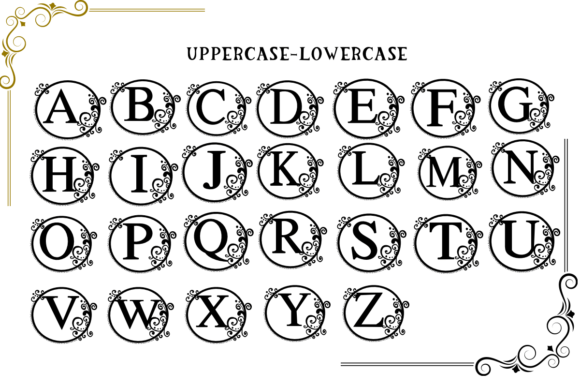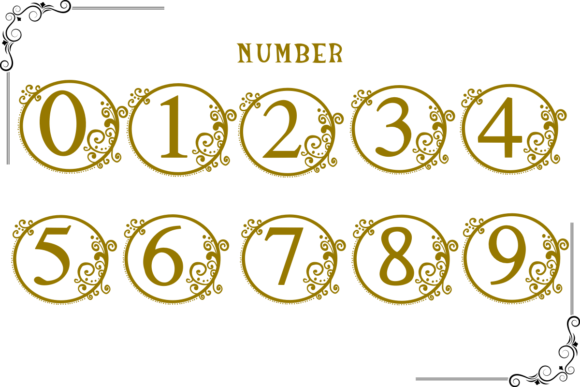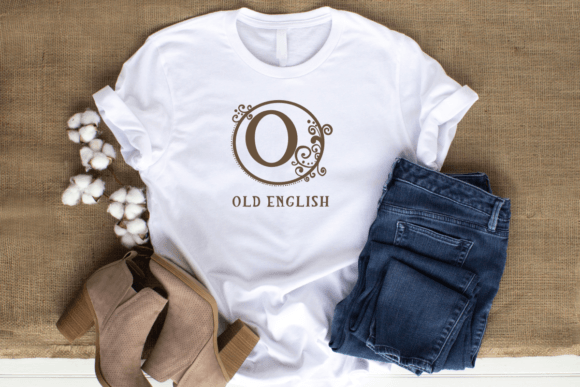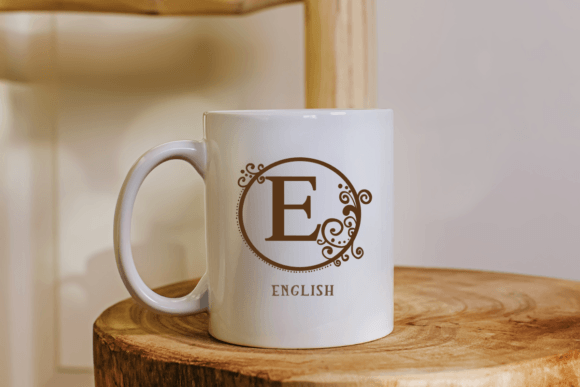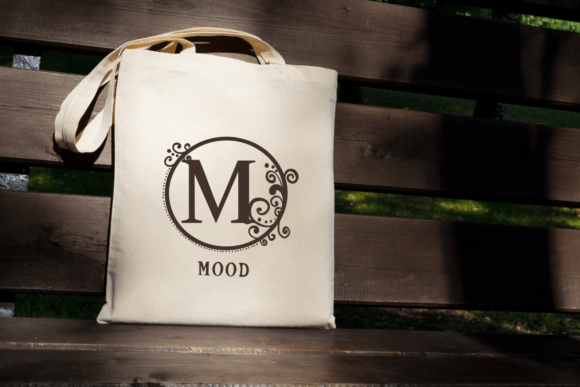
Introduction to Old English Monogram Font
Remember the moment when you stumbled upon that perfect design element that elevated your entire creative project? It’s the spark that ignites your imagination, and for many designers, it’s the Old English Monogram Font that brings that magic. This charming font is more than just a design resource; it’s a key to unlocking the secrets of vintage elegance.
With its intricate details and high-quality design, the Old English Monogram Font is a treasure trove for designers looking to add a touch of antiquity to their work. Whether you’re working on a personal project or a commercial design, this font is sure to give your creations a unique and eye-catching flair. Plus, its versatility makes it perfect for a wide range of applications, from social media posts to banners, and even mugs and shirts.
Key Features of Old English Monogram Font
- Unique, intricate designs that evoke a sense of history and tradition, perfect for projects requiring an Old English touch.
- Perfect for designers, artists, and crafters looking for a distinctive and eye-catching element to enhance their creative projects.
Honest Review: Old English Monogram Font
I recently stumbled upon the Old English Monogram Font, and I must say it’s a game-changer for any designer looking to add a touch of elegance to their creative project. This high-quality design resource is perfect for creating custom logos, invitations, or even wedding stationery.
What works well about the Old English Monogram Font is its versatility. You can use it for a variety of purposes, from formal events to rustic weddings. The font is available for free download, making it a great resource for designers on a budget.
- ✨ Elegant and sophisticated design that adds a touch of class to any project
However, there are a few limitations to consider. The font is a bit limited in terms of customization options, and it may not be suitable for modern or minimalist designs.
- ⚠️ Limited customization options, which may limit its use in certain projects
- ⚠️ May not be suitable for modern or minimalist designs
Overall, I’m really impressed with the Old English Monogram Font. It’s a high-quality design resource that’s perfect for any designer looking to add a touch of elegance to their creative project. With its transparent background and beautiful, intricate design, it’s sure to make your project stand out.
The Old English Monogram Font is a unique and creative design resource that can add a touch of elegance to any project. This font is perfect for designers who want to create high-quality, eye-catching designs.
The Old English Monogram Font is perfect for:
- Business logos and branding
- Event invitations and promotional materials